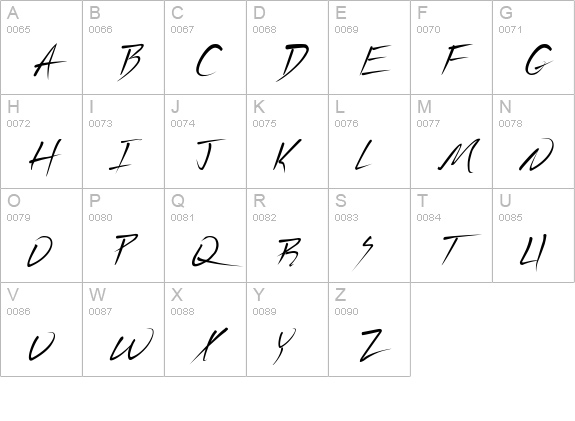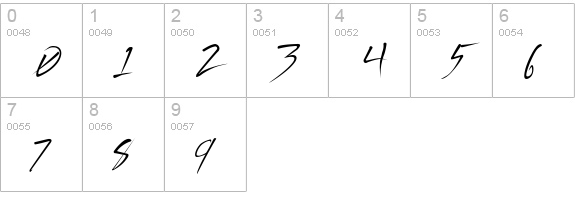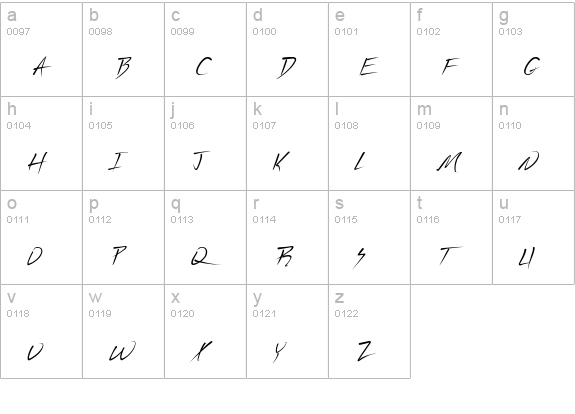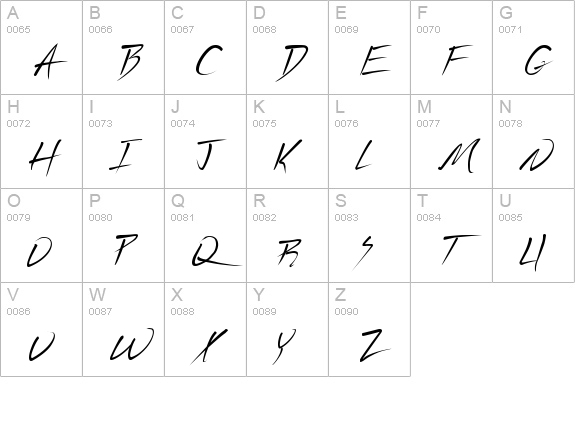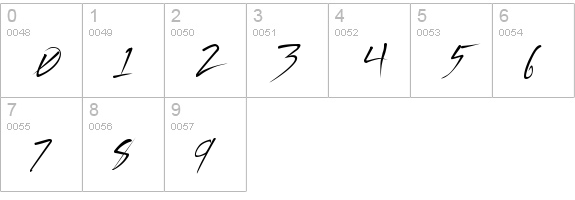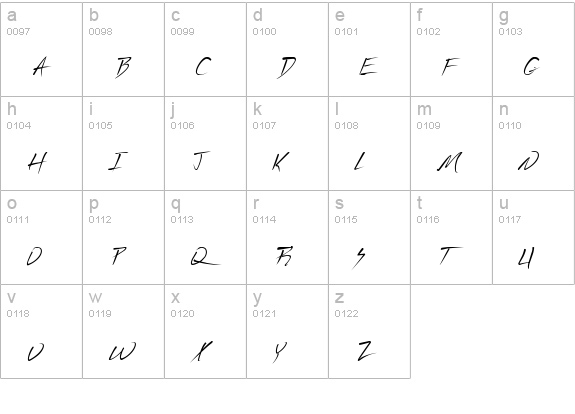
Uecker Font Details
Introducing Uecker font, a stunningly elegant typeface that exudes sophistication and style. This font is the perfect blend of modernity and classic design, making it ideal for a wide range of creative projects. Uecker font showcases a unique combination of sleek lines and graceful curves, creating a harmonious balance that captivates the eye. Its meticulously crafted letterforms possess a sense of effortless fluidity, giving your text a refined and polished appearance. The versatility of Uecker font knows no bounds – from logo design and branding to editorial layouts and website headers, this font effortlessly adapts to any project. It effortlessly conveys a sense of professionalism and class, making it an excellent choice for businesses, fashion, beauty, and luxury brands. The best part? Uecker font is available for free download at FontsMarket.com. Yes, you read that right – this exquisite font can be yours without any cost. Say goodbye to expensive licensing fees and hello to creative freedom. Whether you're a professional designer or a passionate hobbyist, Uecker font provides you with the tools to bring your vision to life. With its extensive character set, Uecker font supports multiple languages, ensuring that your message can be communicated to a global audience. Its legibility and readability remain uncompromised, even at smaller sizes, making it suitable for a variety of mediums. Designed with meticulous attention to detail, Uecker font is a testament to the artistry and craftsmanship of typography. Its clean lines and subtle flourishes make it a timeless choice that will stand the test of time. So why wait? Discover the beauty of Uecker font today and elevate your design projects to new heights. Download it for free at FontsMarket.com and unlock a world of creative possibilities.